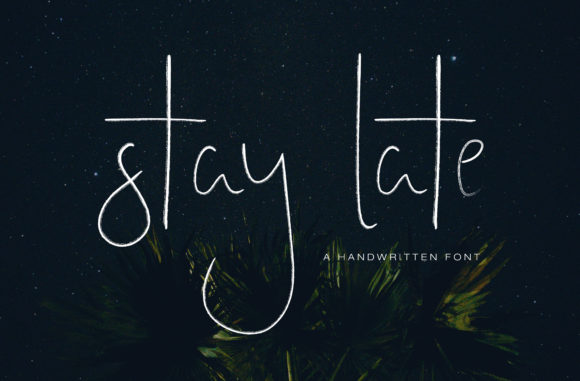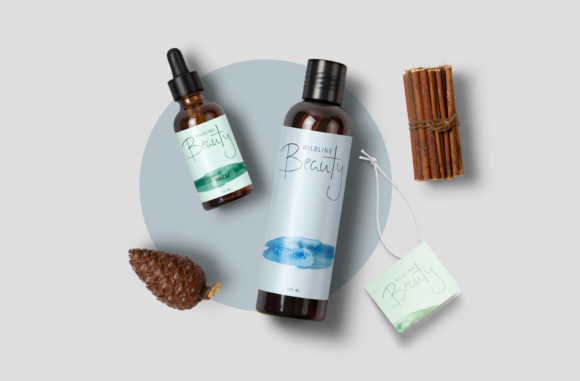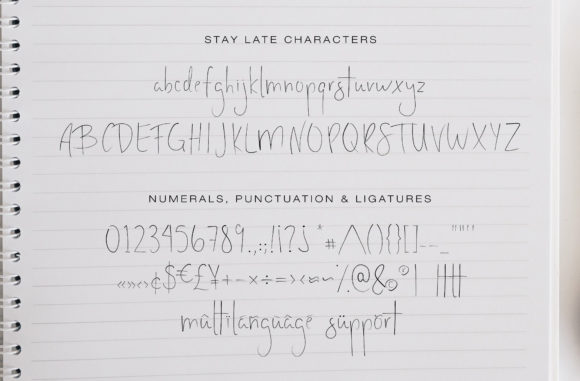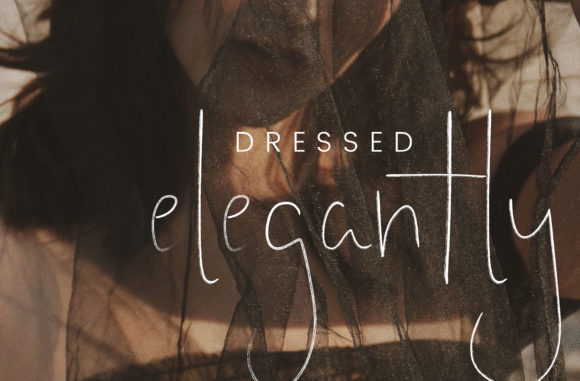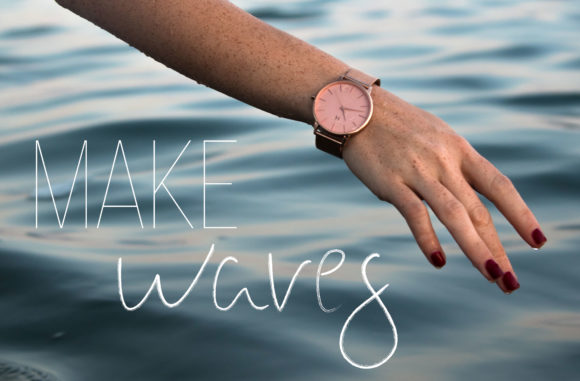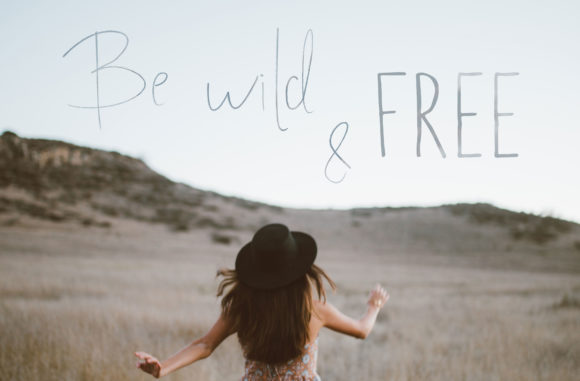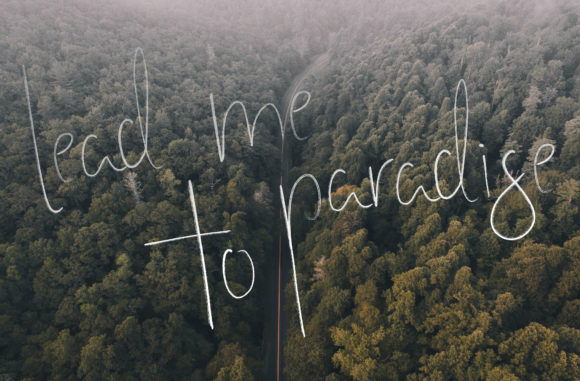
Stay Late Font
About Stay Late Font
The Stay Late a beautiful handwritten signature font. This dreamy font with its painted texture and elegant lines will add a personal touch to your designs.